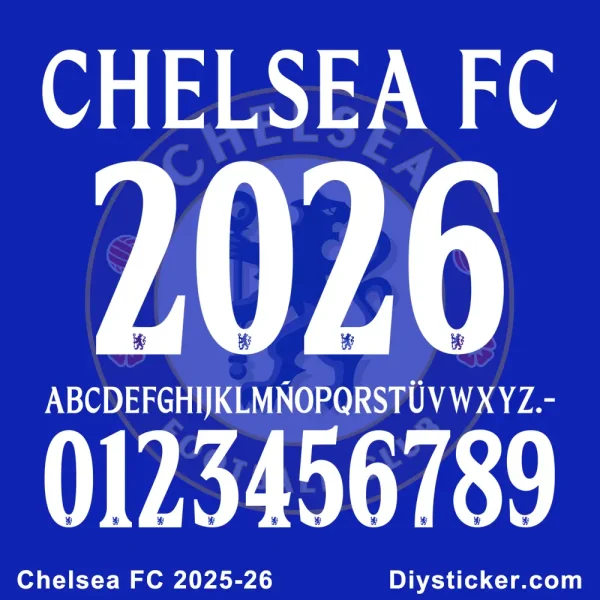
Elevate your custom jersey printing with the official Chelsea 2025-26 Font Download! Custom-designed for sports lettering shops, heat-press operators, and kit customizers, this typography package captures Chelsea FC’s elegant 2025-2026 season cup font styling. Featuring classic serif letterforms and numeric glyphs embedded with the iconic lion club crest at the base, it is the top custom jersey printing font Chelsea choice for DTF printing, vinyl cutting, and custom garment production.
Complete uppercase alphabet, Chelsea squad numbers vector (0-9), and punctuation (
ABCDEFGHIJKLMNOPQRSTUVWXYZ.-).
Elevate Your Kit Customization with the Chelsea 2025-26 Font
Bring authentic match-day cup typography to your custom football kit inventory with the official Chelsea FC 2025-2026 font package! Engineered for high-precision apparel decoration, this digital vector bundle delivers an authentic Chelsea 2025-26 font download tailored to exact kit customization specifications. The design features crisp serif character geometry paired with clean numeric glyphs accented by the official Chelsea lion crest embedded cleanly inside the base of each digit.
A-Z Uppercase Alphabet: Classic, highly-legible serif letterforms tailored for back nameplates.
0-9 Custom Squad Numbers: Bold serif numeric glyphs featuring the official Chelsea lion crest embedded at the base (supplied as Chelsea squad numbers vector).
Punctuation & Symbols: Standard punctuation characters including period and hyphen (
.,-) for accurate player name alignment.
Does this bundle include the Chelsea lion crest at the base of the numbers?